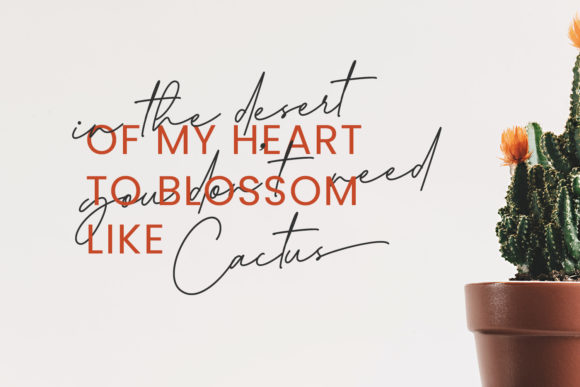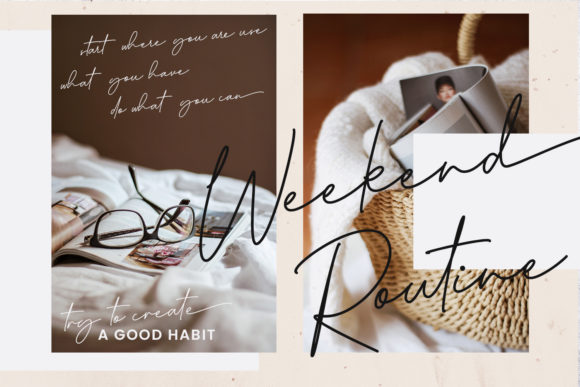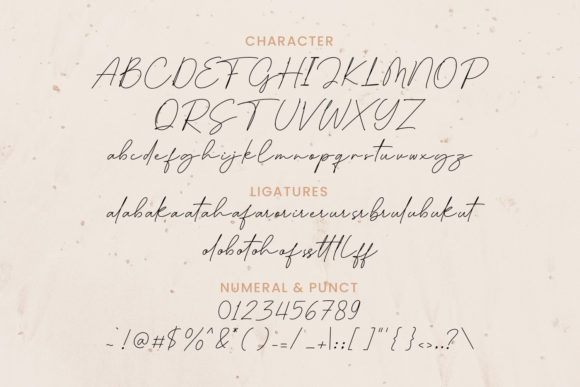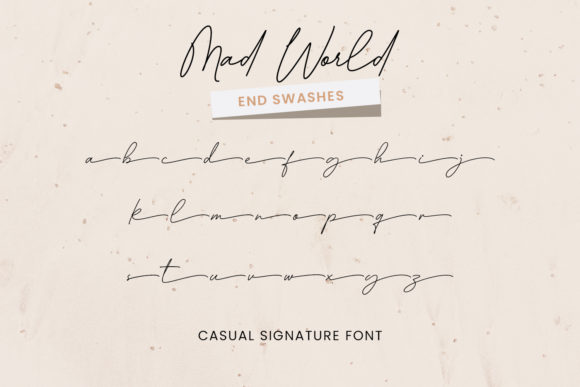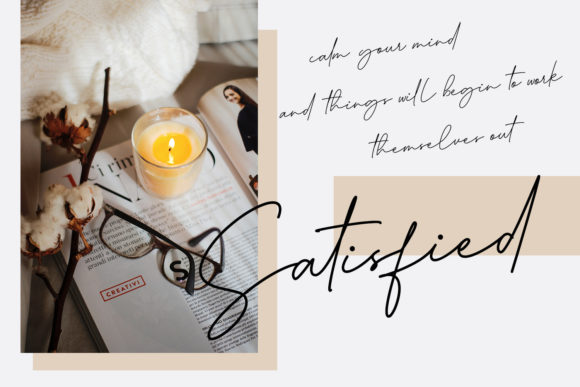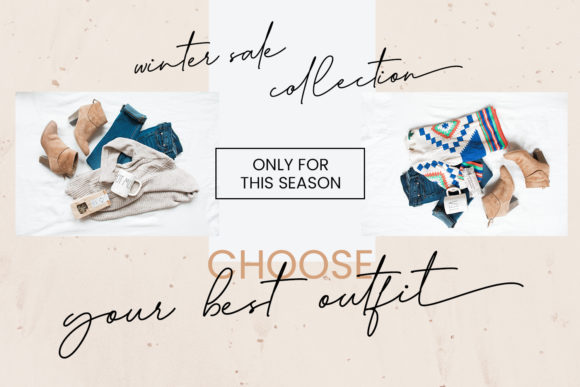
Introduction to Mad World Font
Mad World is a thin and elegant handwritten font.
Mad World is perfectly suited for stationery, logos and much more .
Key Features of Mad World Font
Why Choose Mad World Font?
Mad World Font offers exceptional quality and versatility, making it a valuable addition to your design toolkit. Whether you’re creating for personal projects or commercial use, Mad World Font delivers professional results.